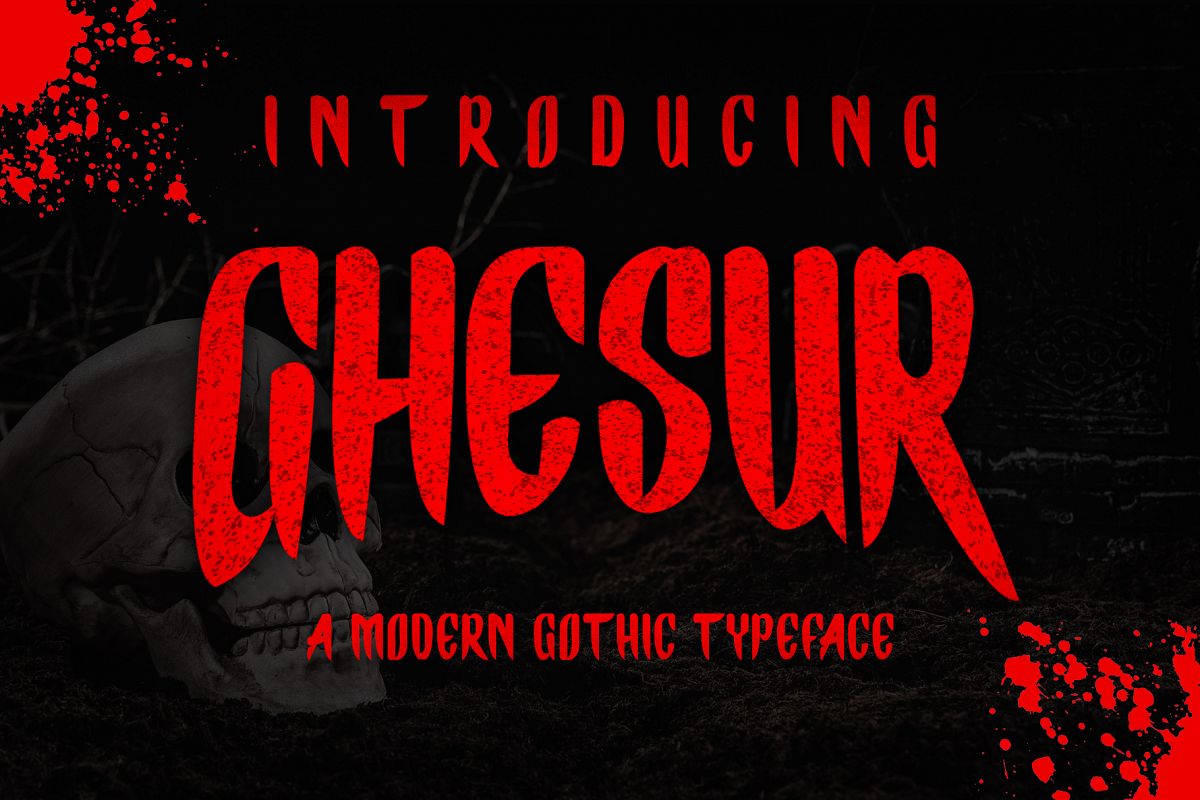
Ghesur - Modern Gothic Horror Serif Sports Typeface
ghesur
Ghesur is a hand-lettered box and ghotic script.This font is awesome for your creative project such as Logotype, esports, Branding, Packaging, Merchandise,  label, and much more.